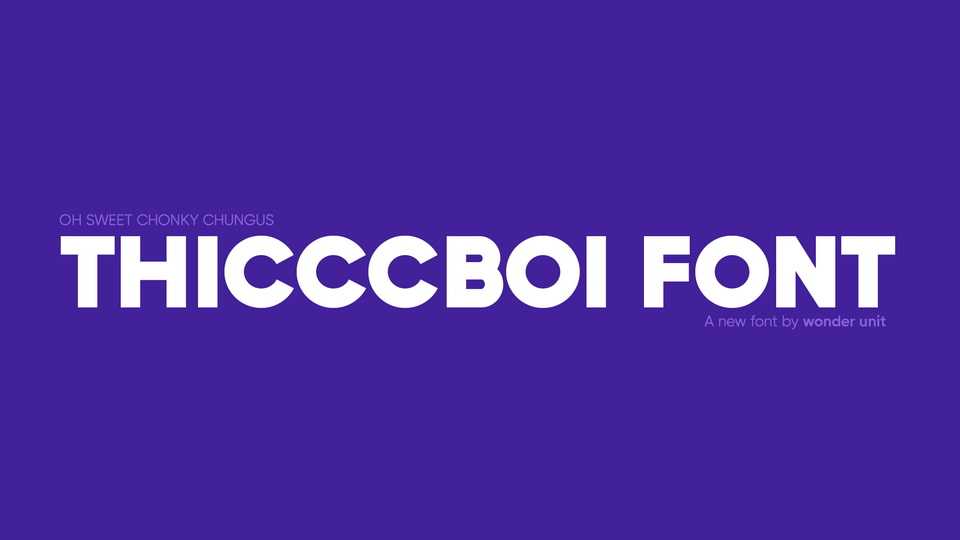
Download Thicccboi typeface, a contemporary geometric sans serif font family in 9 weights. Thicccboi is an ideal corporate typeface that works perfect for both text and display use.
Designer: Wonder Unit